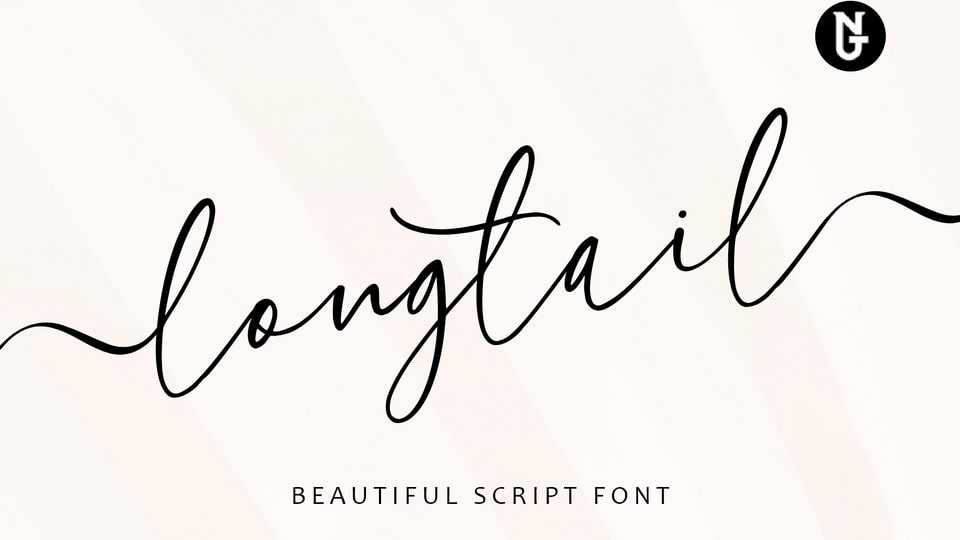
Download Longtail font, a natural handwritten script specially made for the purposes of printing invitation designs, cutting sticker designs, posters with signature writing design styles and much more